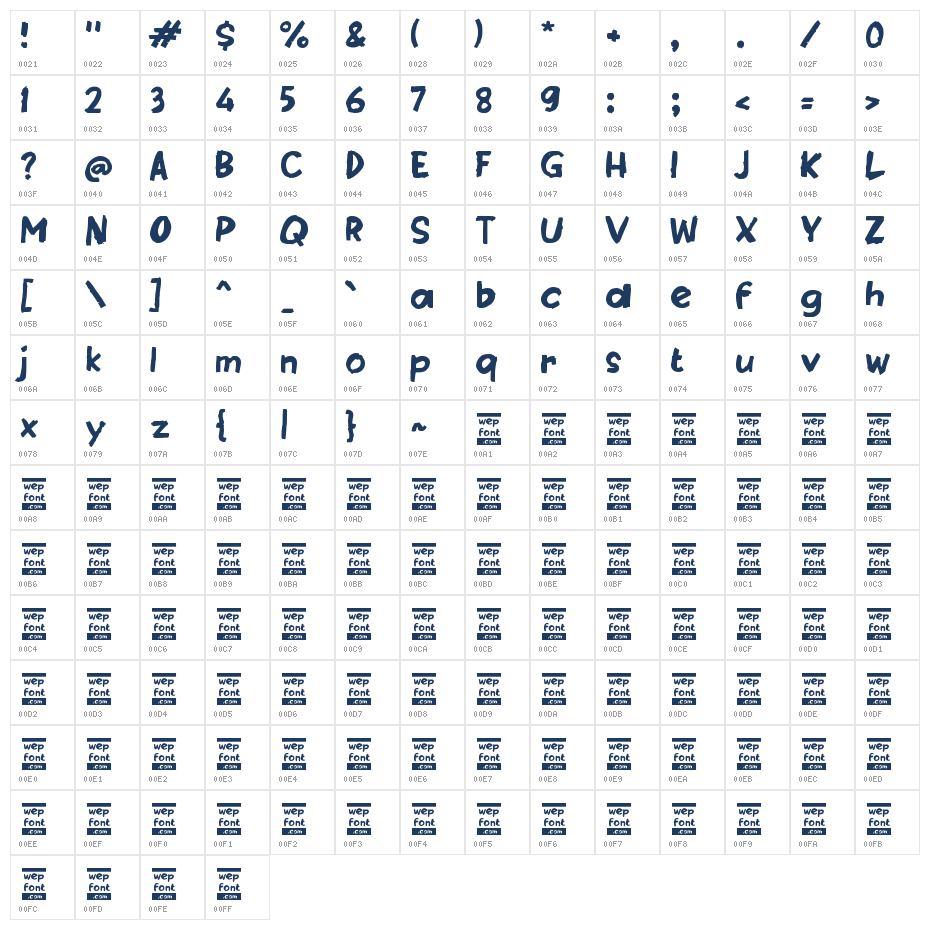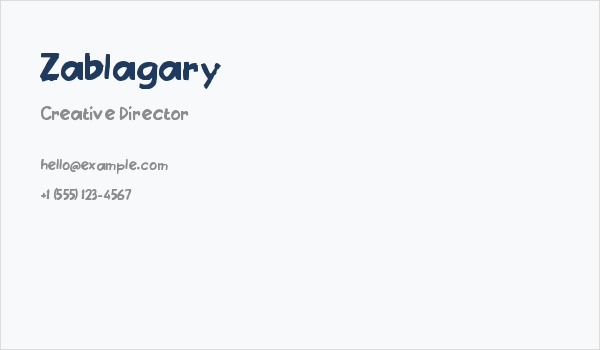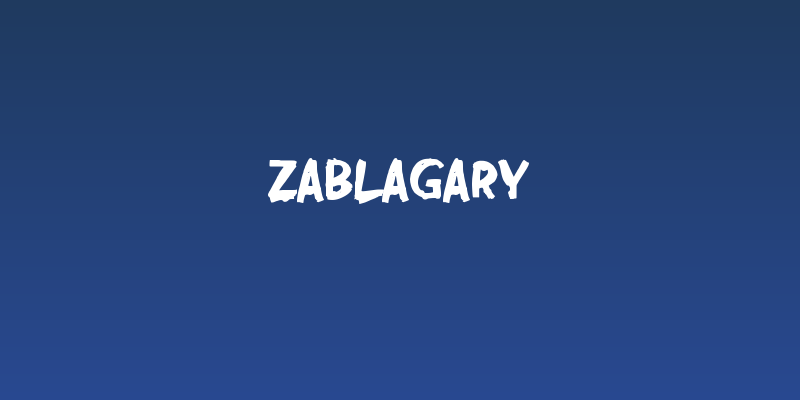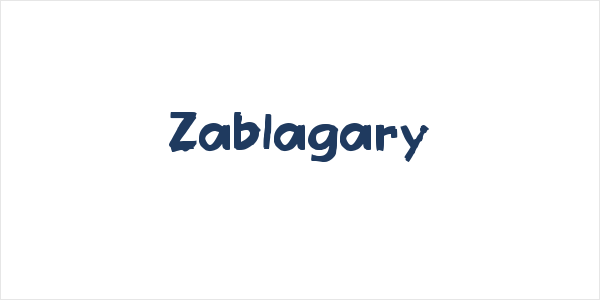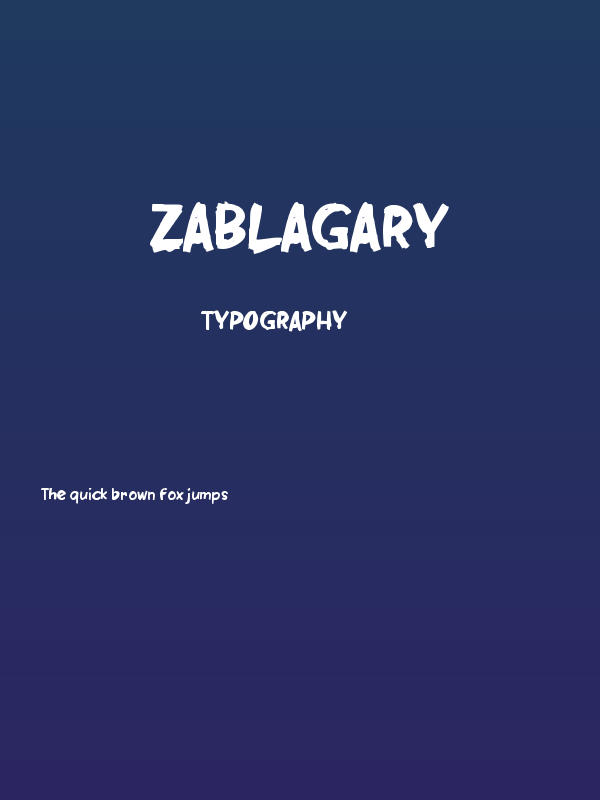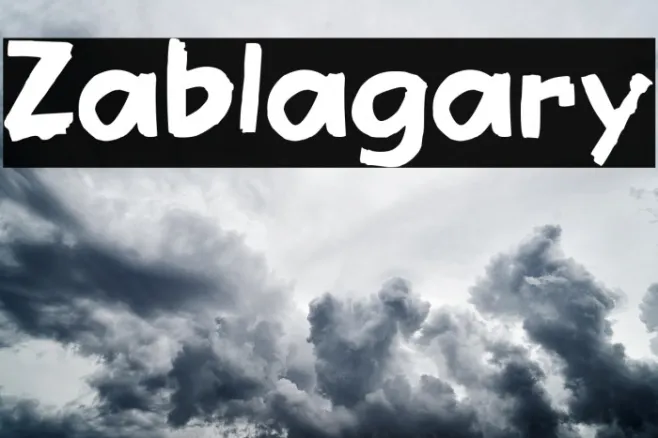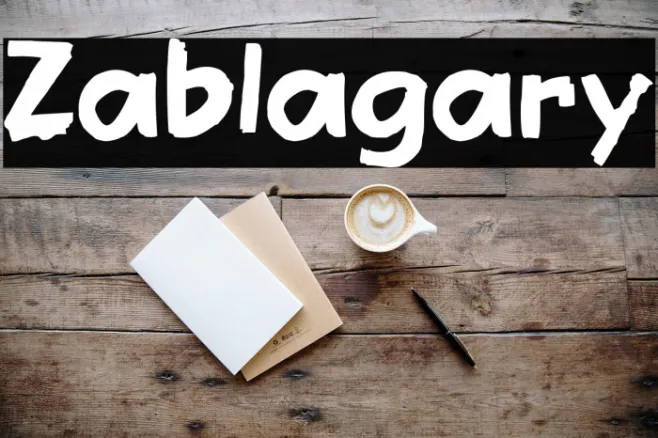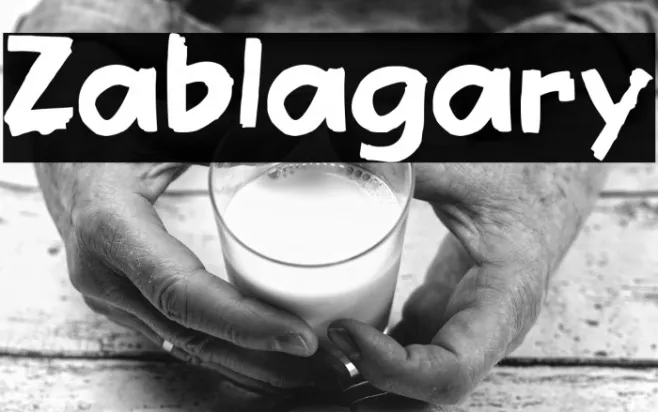
Zablagary Font
Zablagary Description
A bold, playful, handwritten style font with a casual and informal appearance, featuring irregular strokes and a slightly rough texture.
| Use Case | Headlines, Posters, Invitations, Children's books |